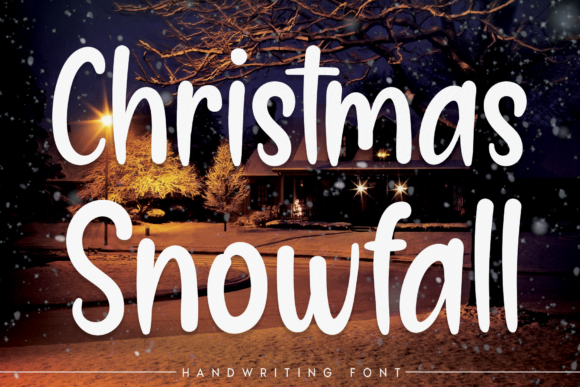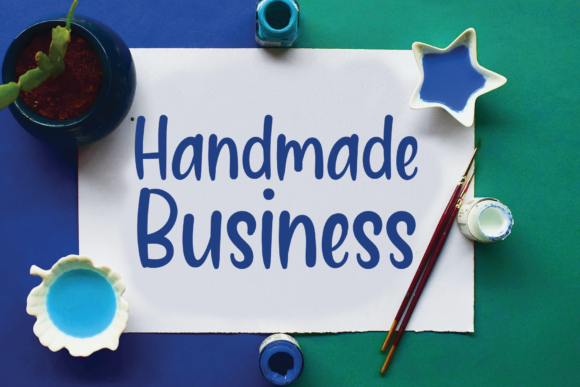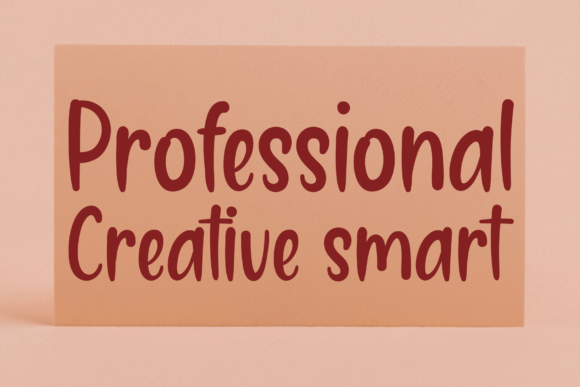
About Christmas Snowfall Font
Christmas Snowfall is a delightful and casual handwritten font that brings a sense of charm and playfulness to your designs. With its natural and trendy style, this font is perfect for various Christmas-themed projects and beyond. Here are some creative ideas for using Christmas Snowfall font in your designs:
1. Greeting Cards: Create adorable Christmas greeting cards featuring the Christmas Snowfall font. Its casual and cute appearance will add a festive touch to your heartfelt messages.
2. Holiday Invitations: Design eye-catching holiday party invitations using Christmas Snowfall font, setting the tone for a joyful and fun celebration.
3. Gift Tags: Add a personal touch to your gift-giving by creating custom gift tags with Christmas Snowfall font. It will make your presents even more special.
4. Social Media Posts: Use Christmas Snowfall font for your social media graphics, whether it’s announcing holiday sales, sharing festive quotes, or spreading holiday cheer.
5. Christmas Crafts: Incorporate Christmas Snowfall font in your DIY craft projects, such as creating custom ornaments, holiday banners, or handmade decorations.
6. Seasonal Art Prints: Design charming art prints with Christmas Snowfall font featuring seasonal phrases and illustrations, perfect for home decor or gifting.
7. Recipe Cards: Create cute recipe cards with Christmas Snowfall font to share your favorite holiday recipes with family and friends.
8. Christmas Merchandise: Use Christmas Snowfall font on Christmas-themed merchandise like mugs, apparel, tote bags, and more.
9. Seasonal Blog Headers: Enhance your blog’s holiday theme with Christmas Snowfall font for festive blog headers and featured images.
10. Kids’ Activities: Design fun and engaging activity sheets, coloring pages, or holiday-themed worksheets with Christmas Snowfall font for the little ones to enjoy.
11. Holiday Party Decorations: Customize banners, posters, and signs with Christmas Snowfall font for holiday parties or events.
12. DIY Christmas Cards: Handwrite your own Christmas cards using the Christmas Snowfall font to add a personal and crafty touch.
Christmas Snowfall font’s cute and casual style makes it versatile for a wide range of holiday projects and beyond. Its trendy appeal adds a modern twist to the traditional holiday spirit, making it a perfect choice for creating joyful and charming designs. Let your creativity shine with Christmas Snowfall font, and bring a touch of playfulness to your Christmas-themed creations.